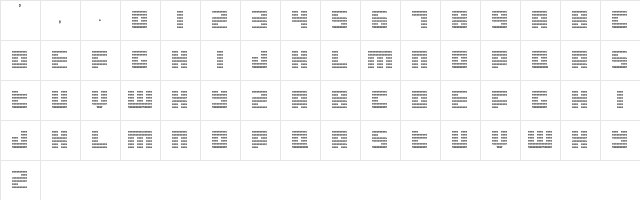
Display Gothic I Regular
| Designer | Wolf Lambert |
Design Context for Display Gothic I Typeface
Display Gothic I is built around its visual character rather than neutral utility — its distinctive forms are designed to make an impression at display sizes.
Font Pairing: Pair with a clean neutral sans-serif for body copy to let Display Gothic I's character lead without overwhelming the composition.
Pro Tip: Treat Display Gothic I as the centrepiece of your typographic hierarchy. One strong heading set in a decorative face can carry an entire layout.